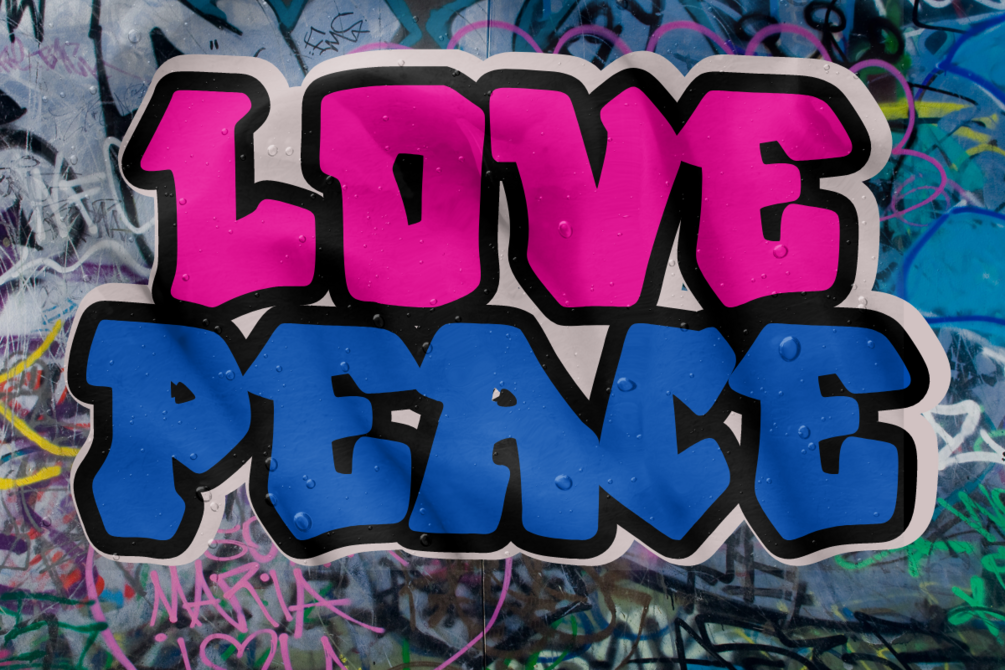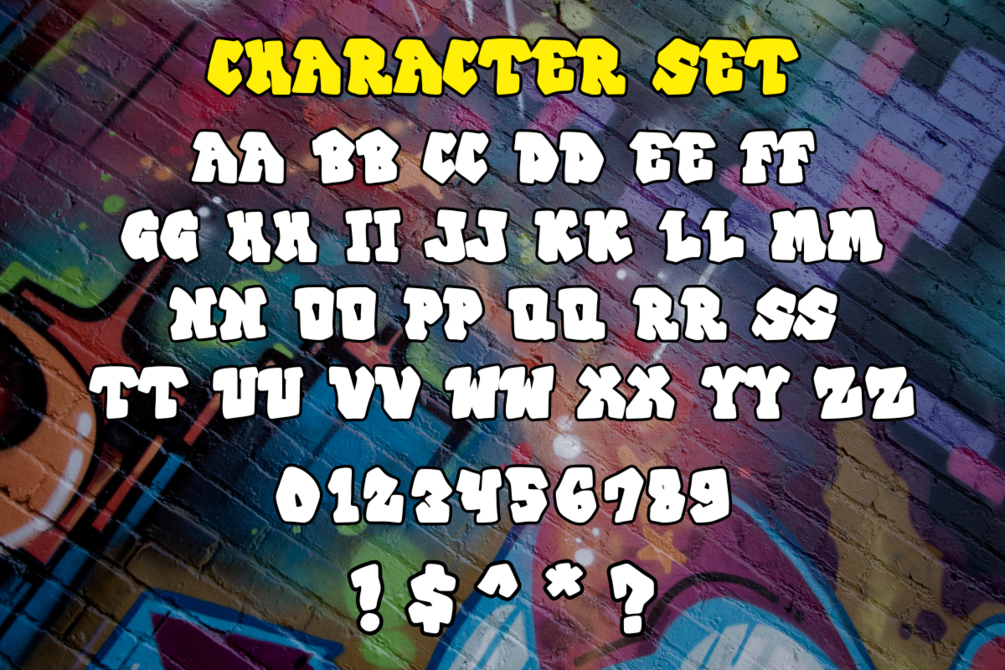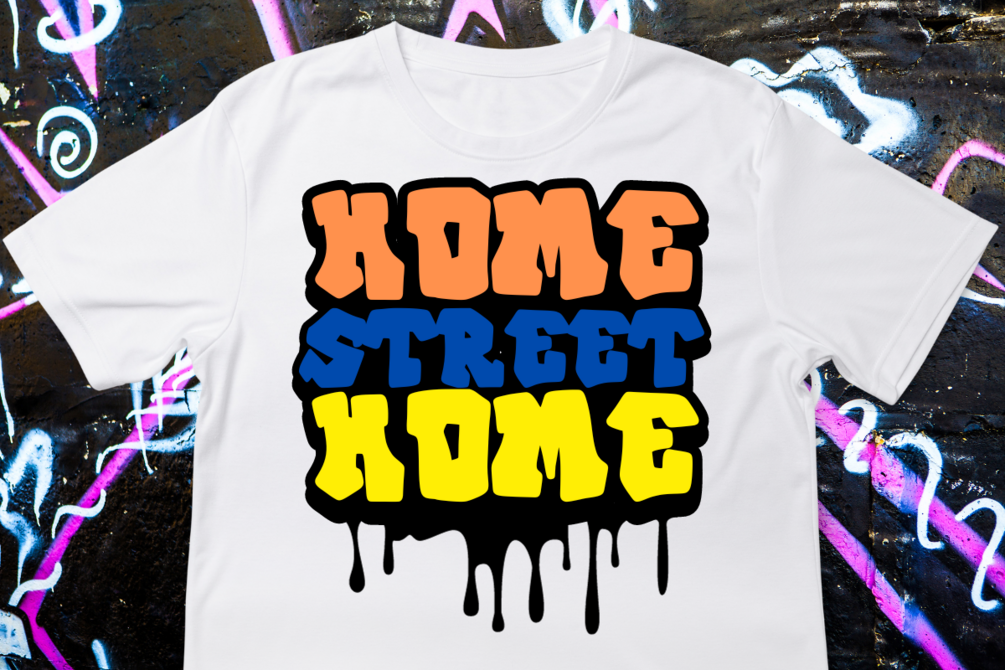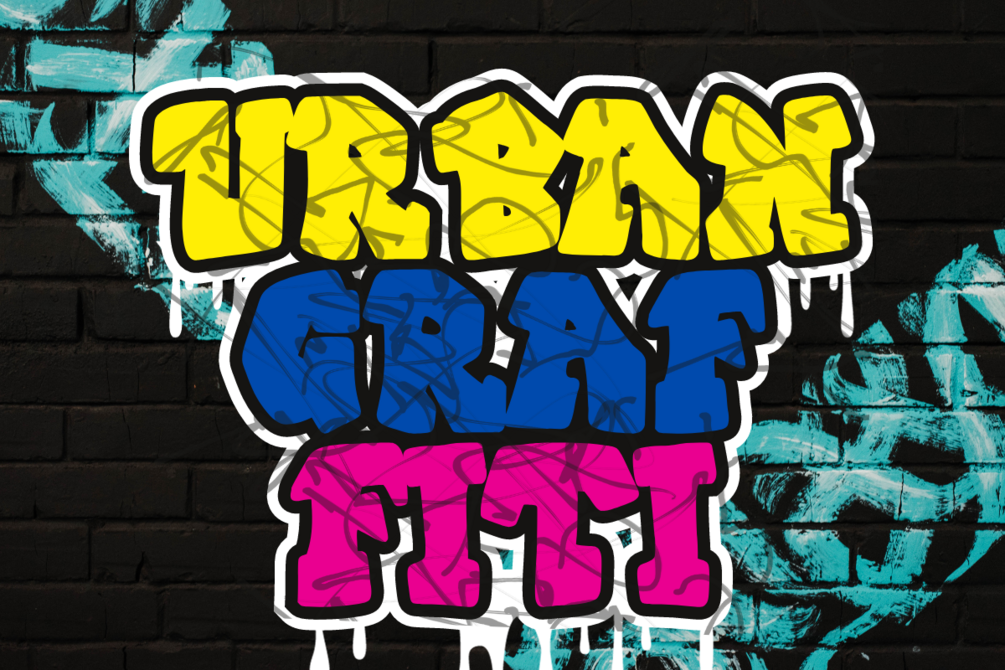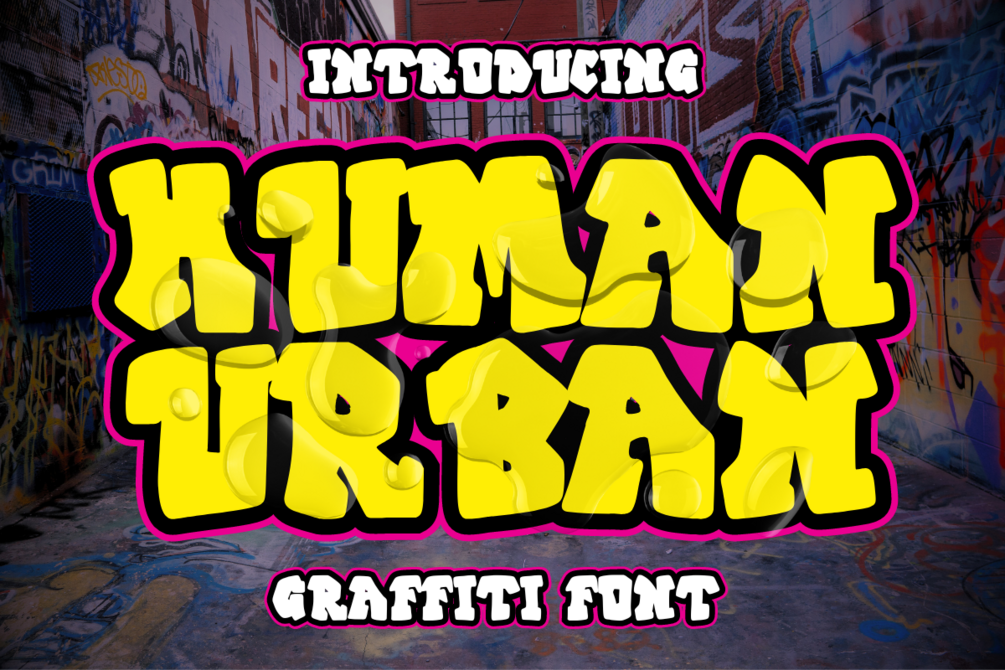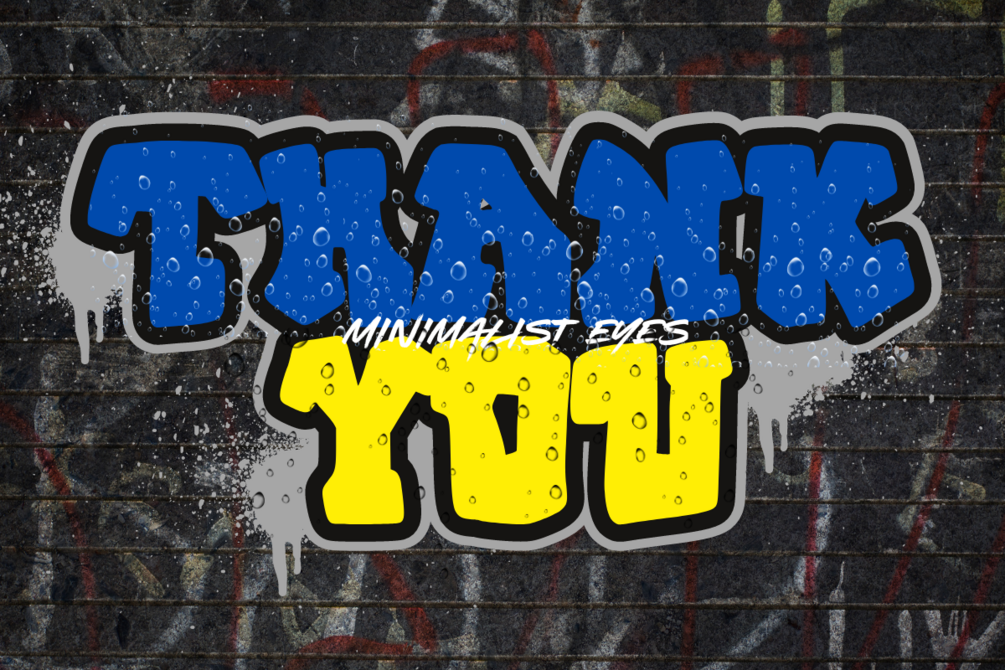
Human Urban - Graffiti Font
Human Urban is an urban graffiti font with a bold and bold look. Ideal for music posters, clothing designs, shirts and streetwear, this font brings a touch of edginess to your projects.